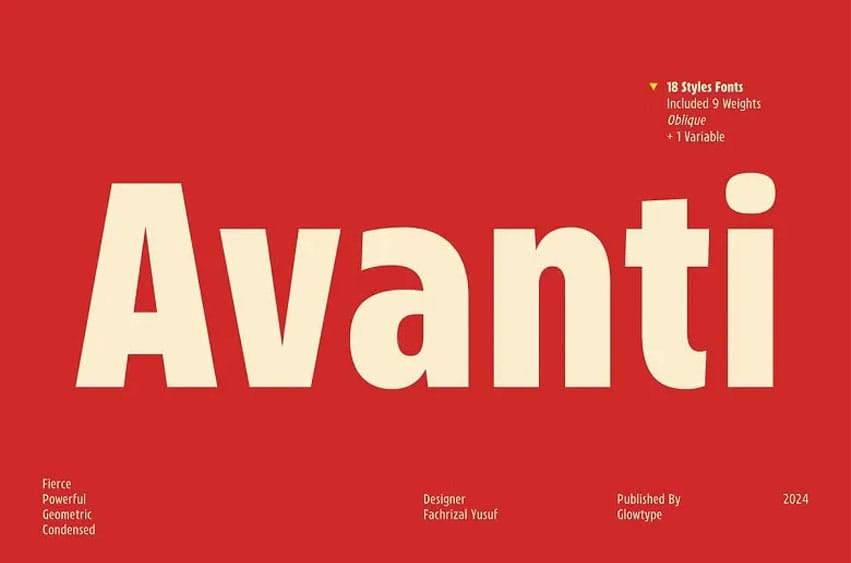
Avanti Font is a modern condensed sans serif font family. Avanti is Italian for forward and was chosen to make your brand and its identity look and feel strong and aggressive. This font is not only beautiful and well-designed but also rather functional – it is a delight to work with.